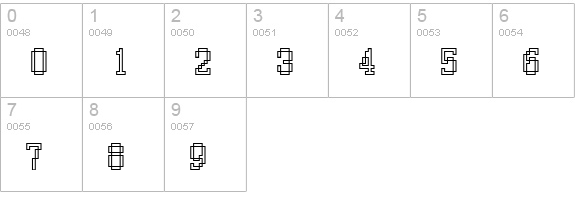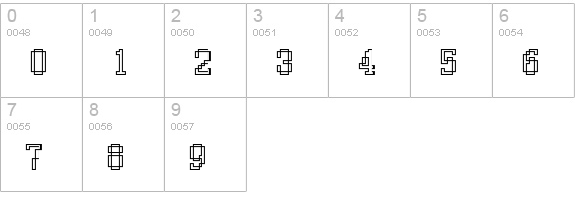
Rough33-Bold Font Details
Rough33-Bold is a strong, high-contrast variant in the Rough33 typeface family \xE2\x80\x94 well suited to headlines, attention-grabbing titles, and strong calls-to-action.
Rough33-Bold font is a bold and rugged typeface that conveys strength and boldness. Its rough edges and distinctive style make it stand out in any design project, adding a touch of character and personality. This versatile font is perfect for headlines, logos, posters, and any other creative project that requires a bold and eye-catching typeface. The best part? Rough33-Bold font is available for free download at FontsMarket.com, making it easily accessible for designers and creatives looking to add a unique touch to their work without breaking the bank. Whether you're designing a branding project, a poster, or a website, Rough33-Bold font is sure to make a statement and leave a lasting impression. Download it today and unleash your creativity with this bold and distinctive typeface.